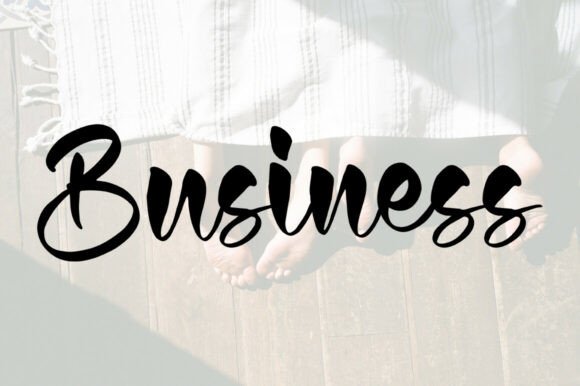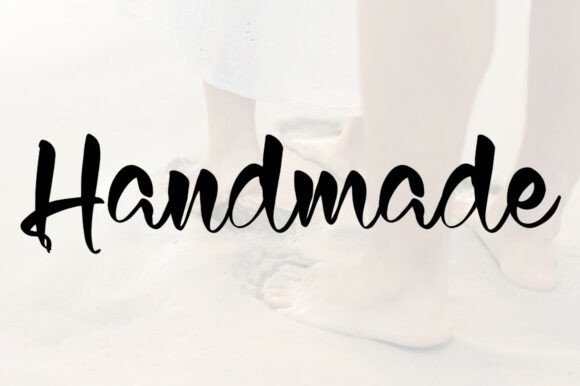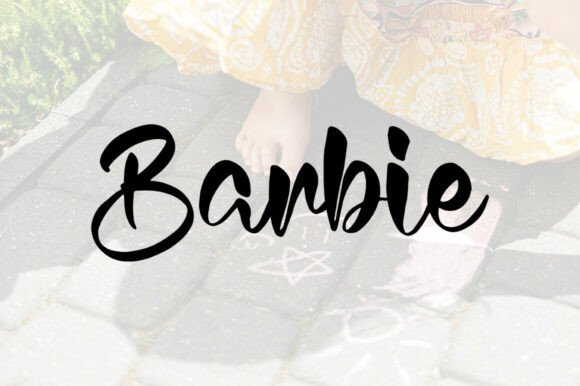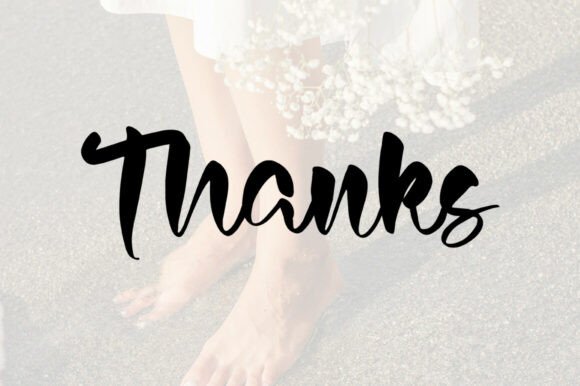
Bunting Font: Elevate Your Designs with Elegance and Sophistication
In the world of typography, fonts play a crucial role in conveying the tone and aesthetic of a design. For designers and crafters seeking a delicate, elegant, and flowing handwritten font, Bunting Font is an exceptional choice. With its beautiful and well-balanced characters, Bunting Font matches a wide pool of designs, making it a versatile and popular option.
What is Bunting Font?
Bunting Font is a modern, handwritten font that exudes elegance and sophistication. Its flowing lines and delicate strokes create a sense of refinement, perfect for designs that require a touch of luxury. The font’s well-balanced characters ensure that it remains legible and visually appealing, even at smaller sizes.
Key Features of Bunting Font
- Delicate and Elegant: Bunting Font’s flowing lines and delicate strokes create a sense of refinement and luxury.
- Well-Balanced Characters: The font’s characters are carefully crafted to ensure balance and harmony, making it perfect for a wide range of designs.
- Versatile: Bunting Font matches a wide pool of designs, from modern and minimalist to traditional and ornate.
- Legible: Despite its delicate nature, Bunting Font remains legible even at smaller sizes, making it perfect for body text and captions.
Uses of Bunting Font
Bunting Font’s versatility makes it suitable for a wide range of design applications, including:
- Wedding and Event Designs: Bunting Font’s elegant and sophisticated nature makes it perfect for wedding invitations, save-the-date cards, and event branding.
- Branding and Packaging: The font’s luxurious feel makes it ideal for high-end branding and packaging designs.
- Stationery and Paper Crafts: Bunting Font is a popular choice for stationery and paper crafts, such as greeting cards, journals, and planners.
- Digital Designs: The font’s legibility and elegance make it suitable for digital designs, including website headers, social media graphics, and email newsletters.
Tips for Using Bunting Font
To get the most out of Bunting Font, consider the following tips:
- Pair with Bold Fonts: Combine Bunting Font with bold fonts to create visual contrast and add depth to your design.
- Use for Headings and Titles: Bunting Font’s elegant nature makes it perfect for headings and titles, adding a touch of sophistication to your design.
- Experiment with Colors: Try pairing Bunting Font with different colors to create a unique and eye-catching design.
Bunting Font is a beautiful, elegant, and flowing handwritten font that is perfect for designers and crafters seeking to add a touch of sophistication to their designs. With its well-balanced characters and versatile nature, Bunting Font is suitable for a wide range of design applications. Whether you’re creating wedding invitations, branding materials, or digital designs, Bunting Font is an excellent choice.
So, why not give Bunting Font a try? With its delicate and elegant lines, it’s sure to elevate your designs and add a touch of luxury to your projects.